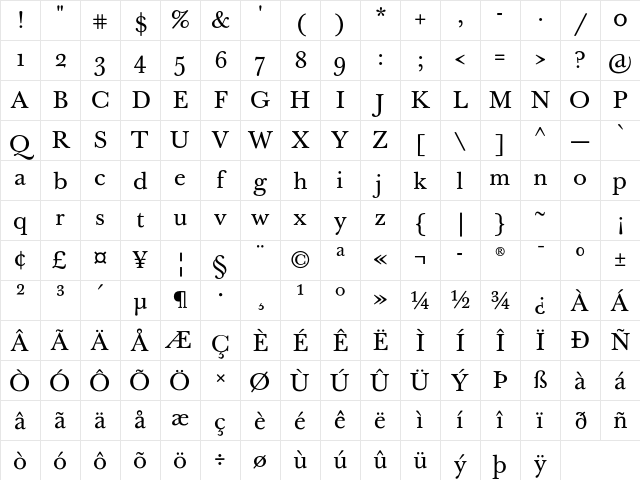
Complete Baskerville Ten Pro Regular glyph index. Displaying only characters natively supported by Baskerville Ten Pro Regular font.
Baskerville Ten Pro is a composed and adaptable typeface that performs quietly and consistently across a wide range of design contexts.